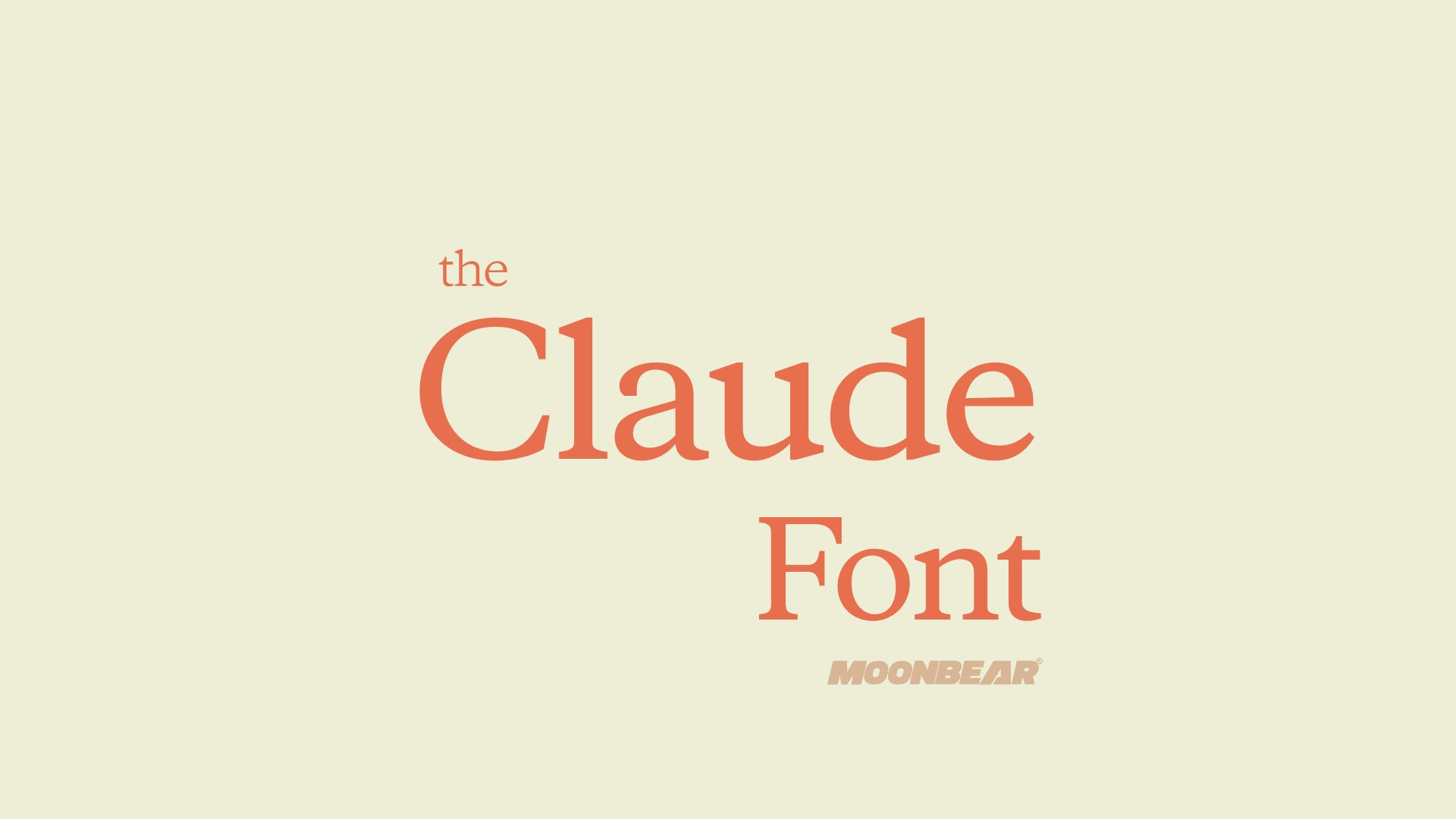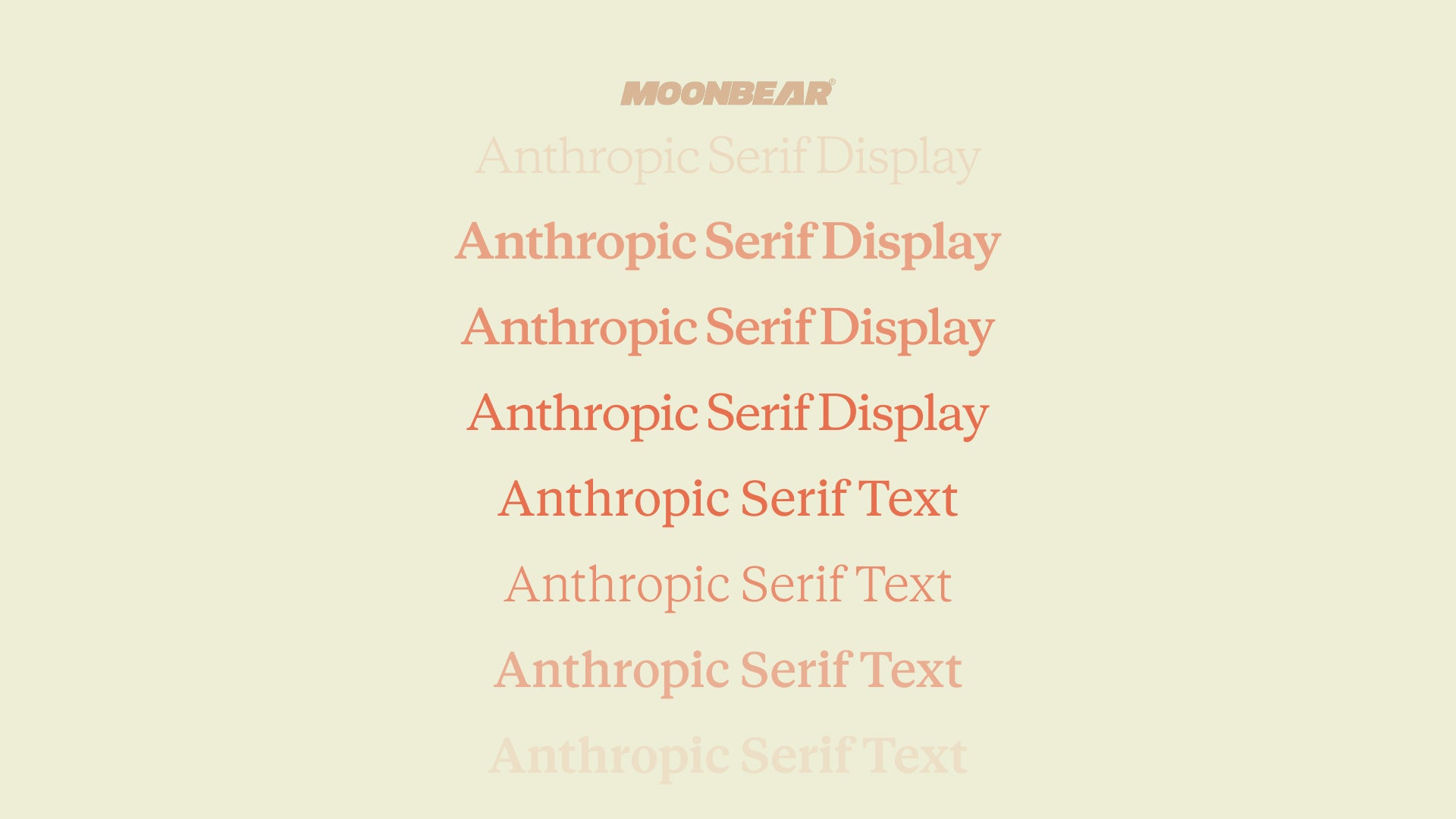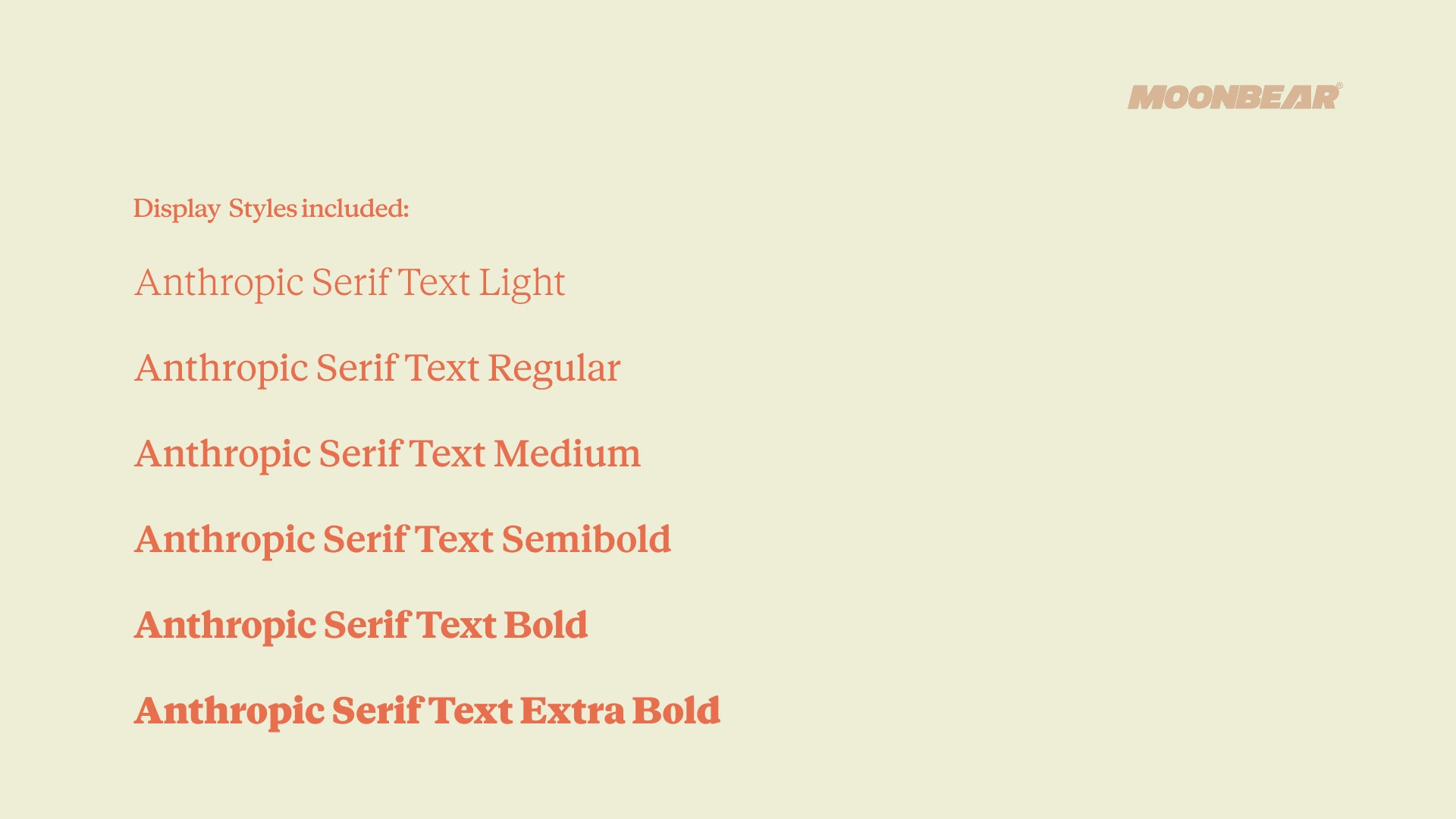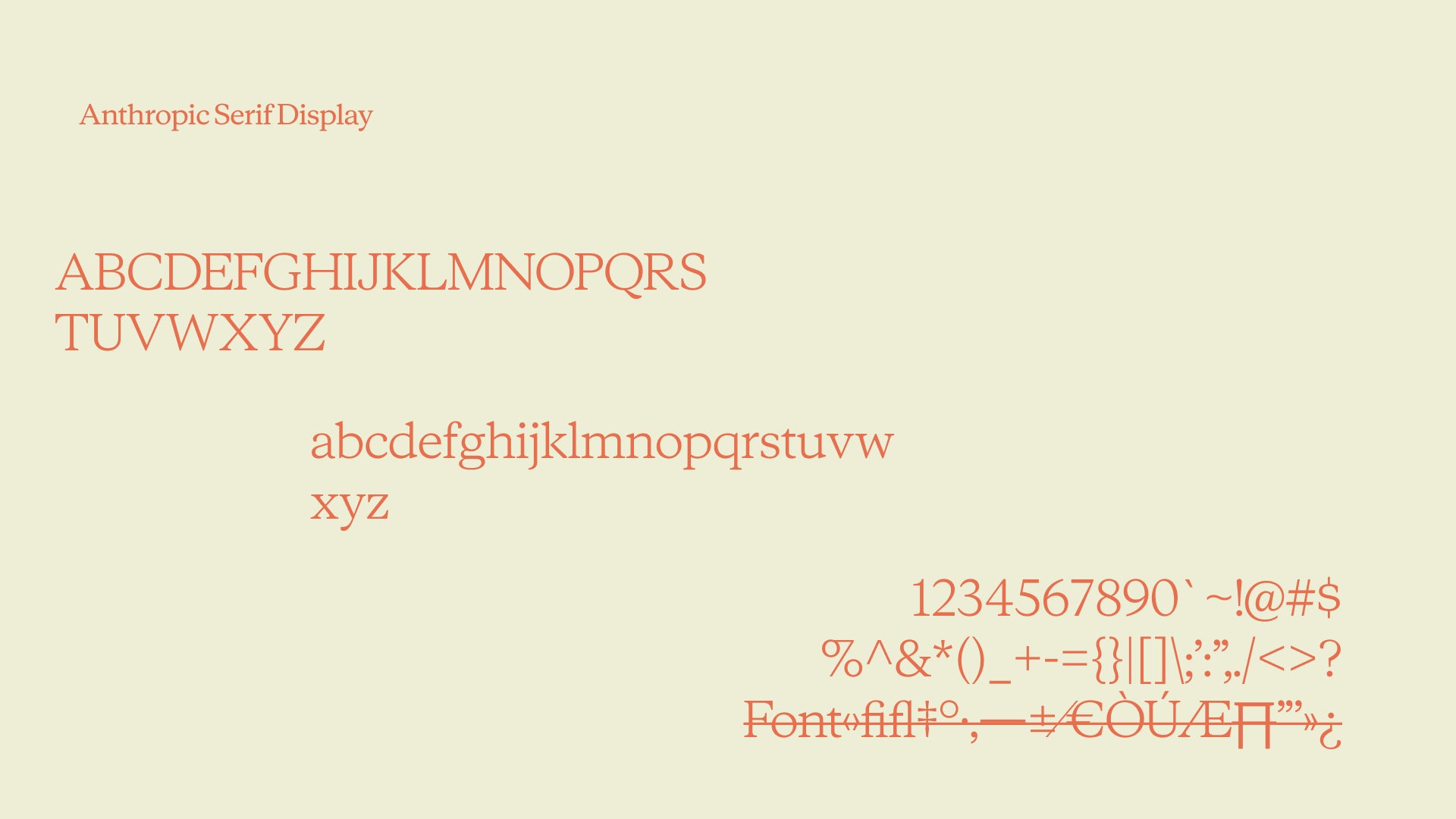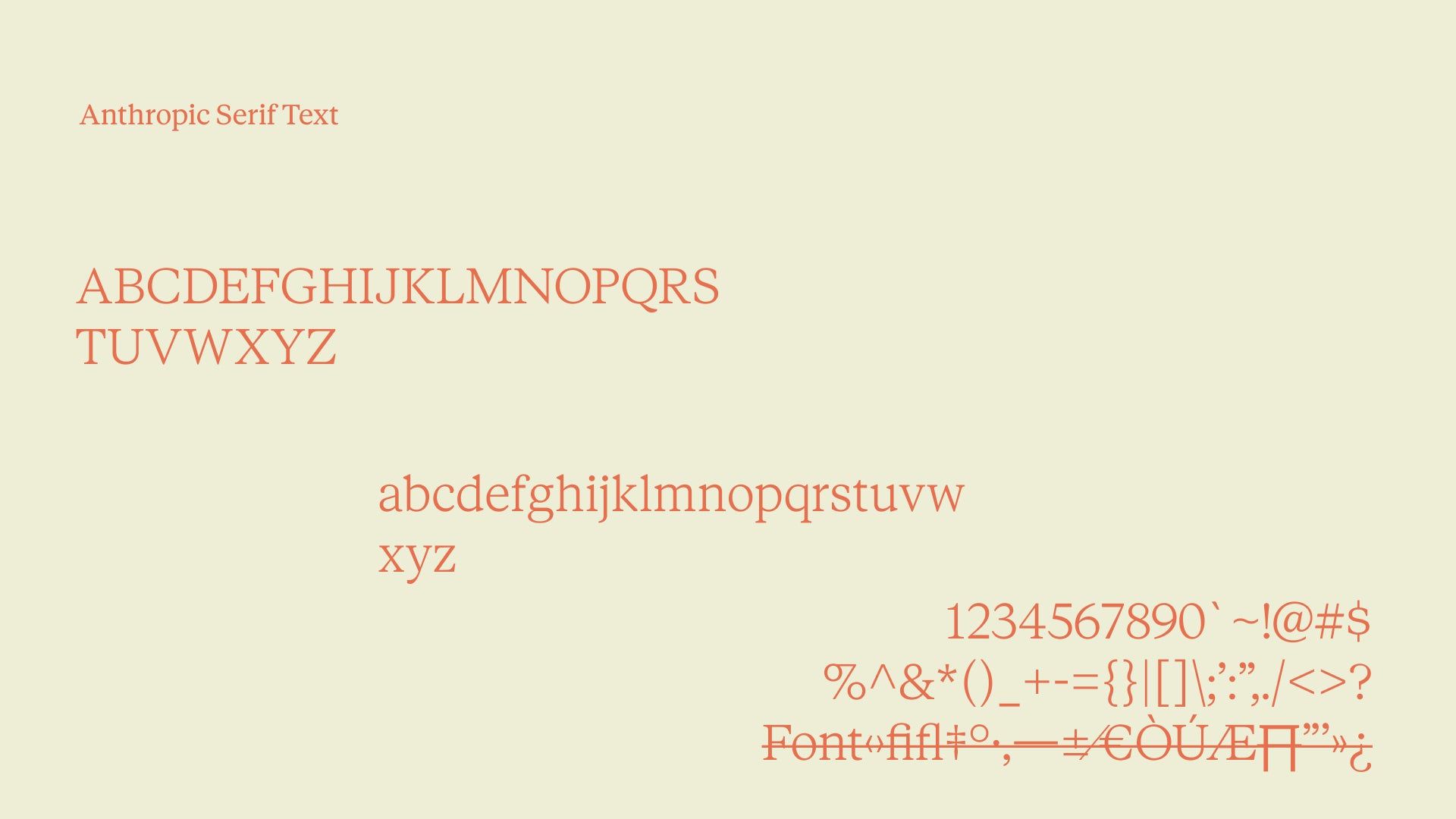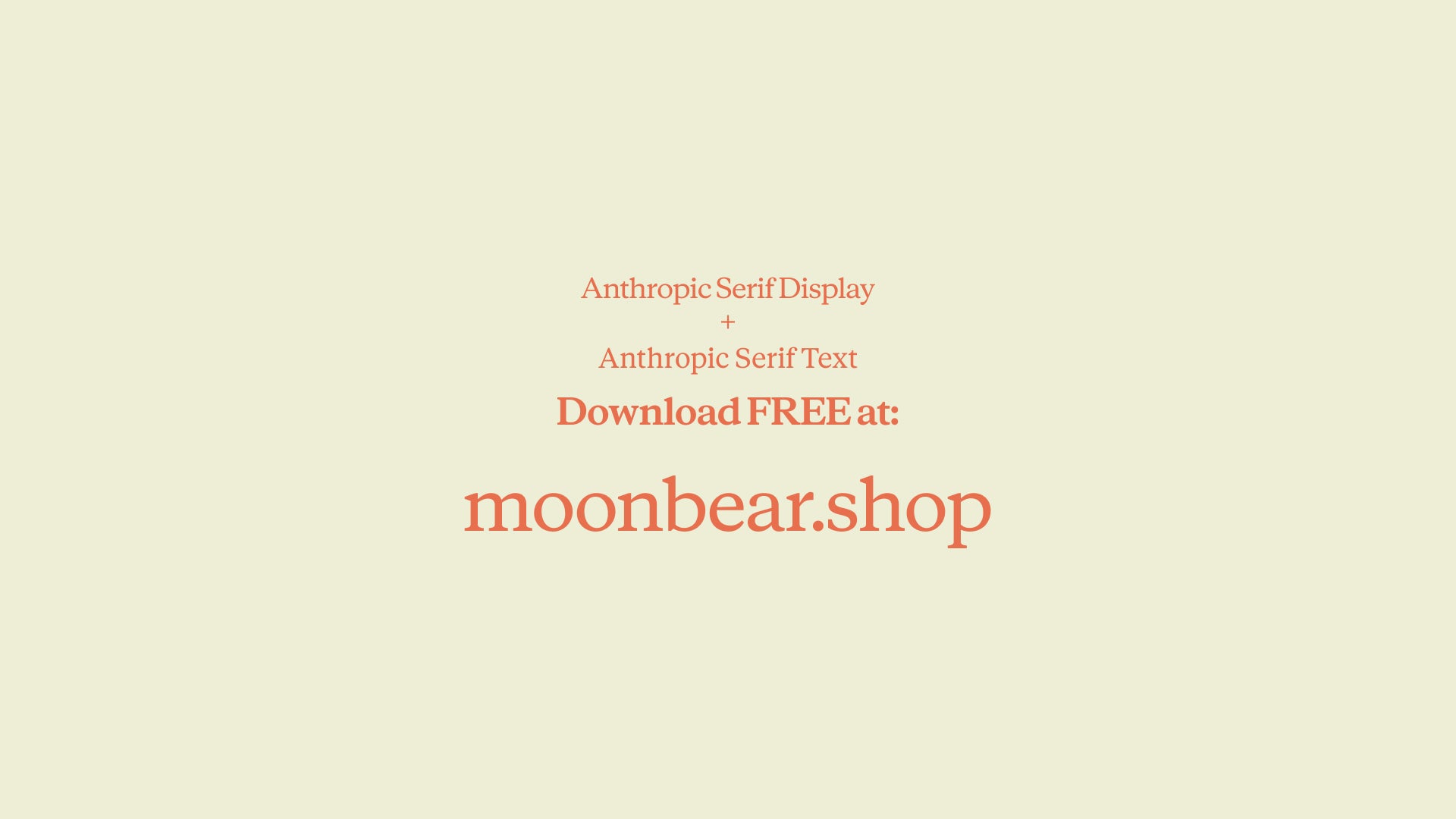
The Claude Font
Anthropic Serif
The Claude Font
"The Claude Font" is called Anthropic Serif, a custom typeface created by Anthropic for their brand and products.
This professional font family includes two distinct typefaces:
Anthropic Serif Display
Anthropic Serif Text
Each typeface offers five weight options—light, regular, medium, bold, and extra bold—giving you flexibility for any design need.
Used across Claude Chat, Claude Cowork, and official Anthropic advertising, this font brings the same polished, modern aesthetic to your projects.